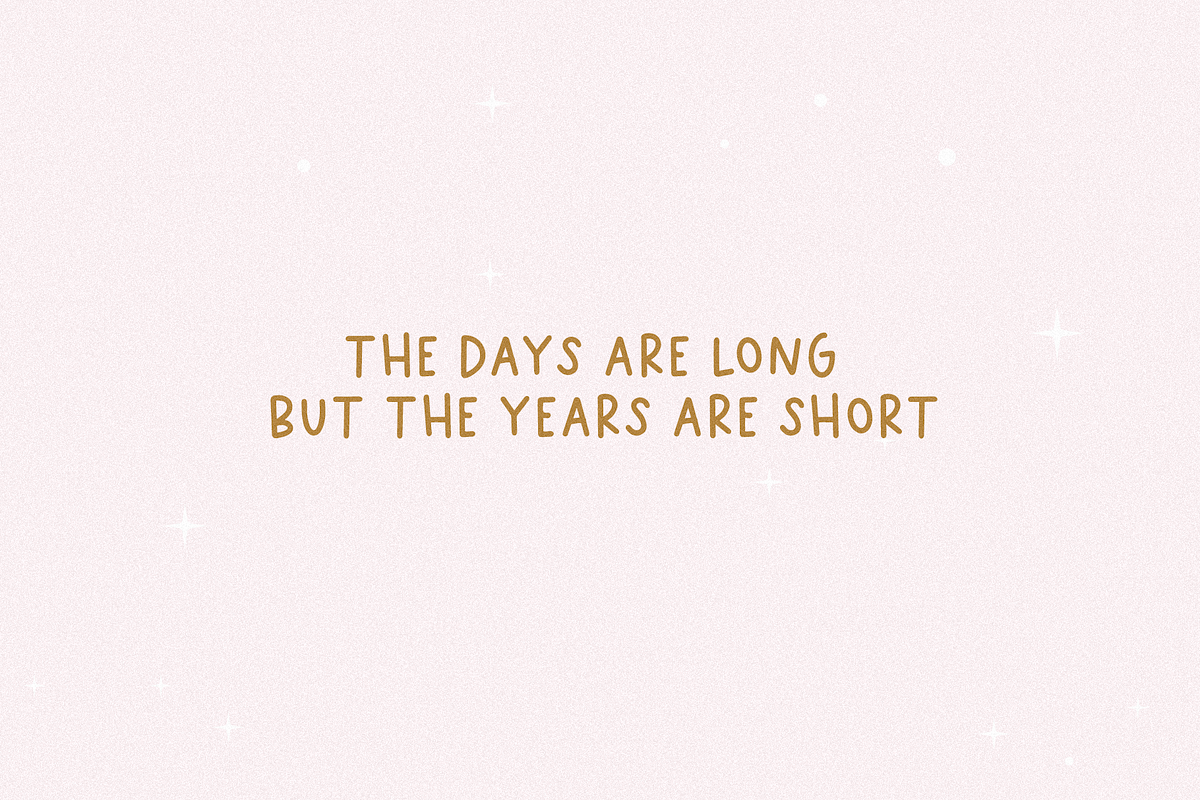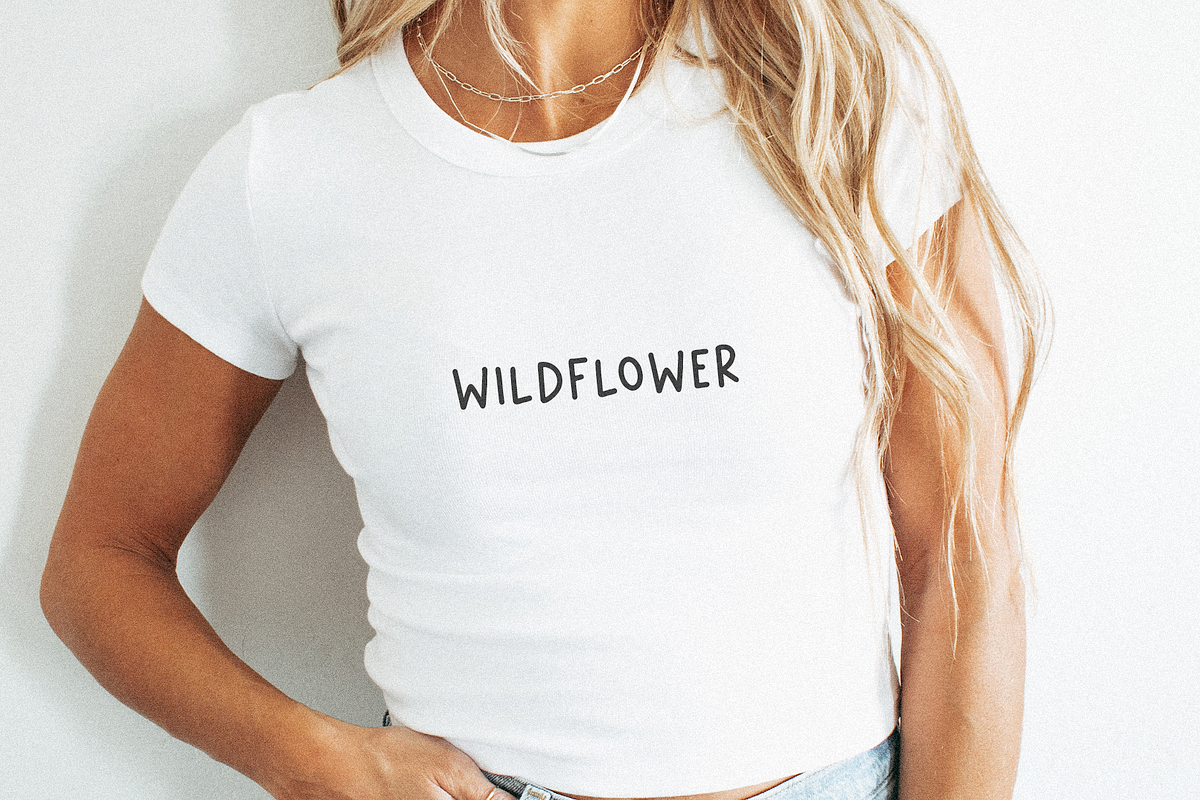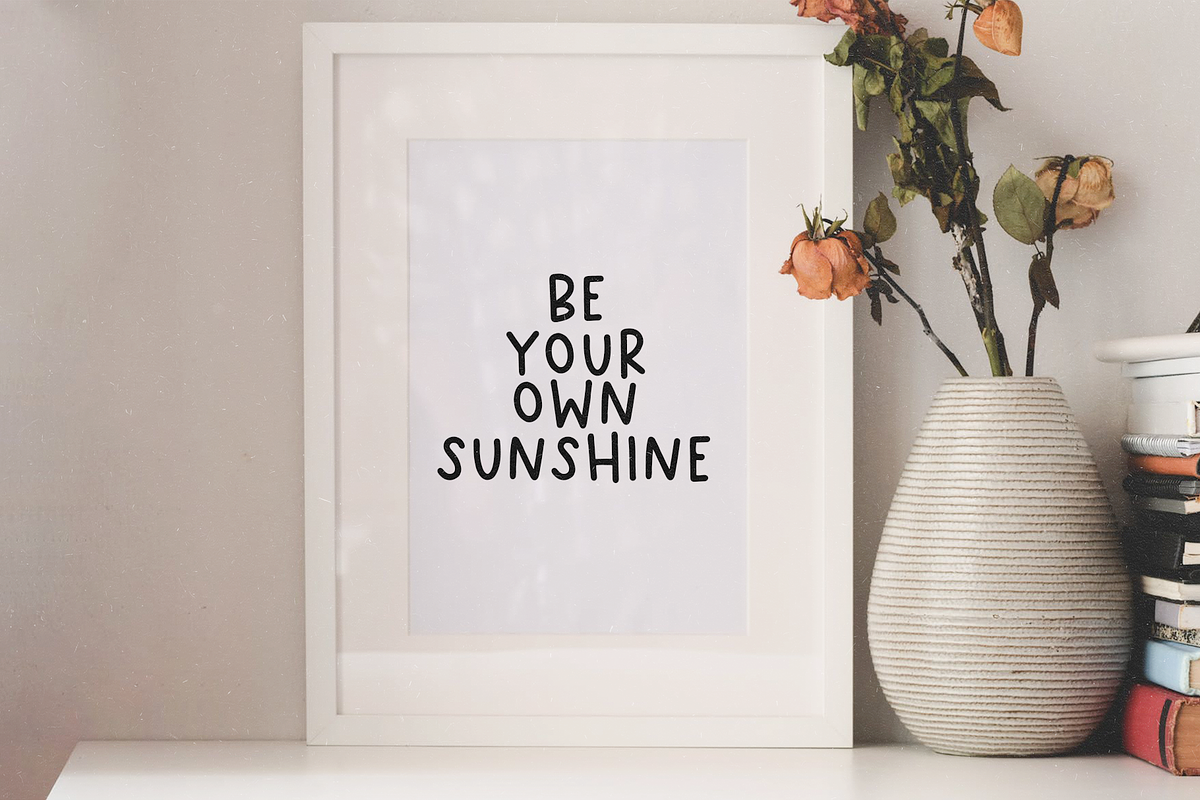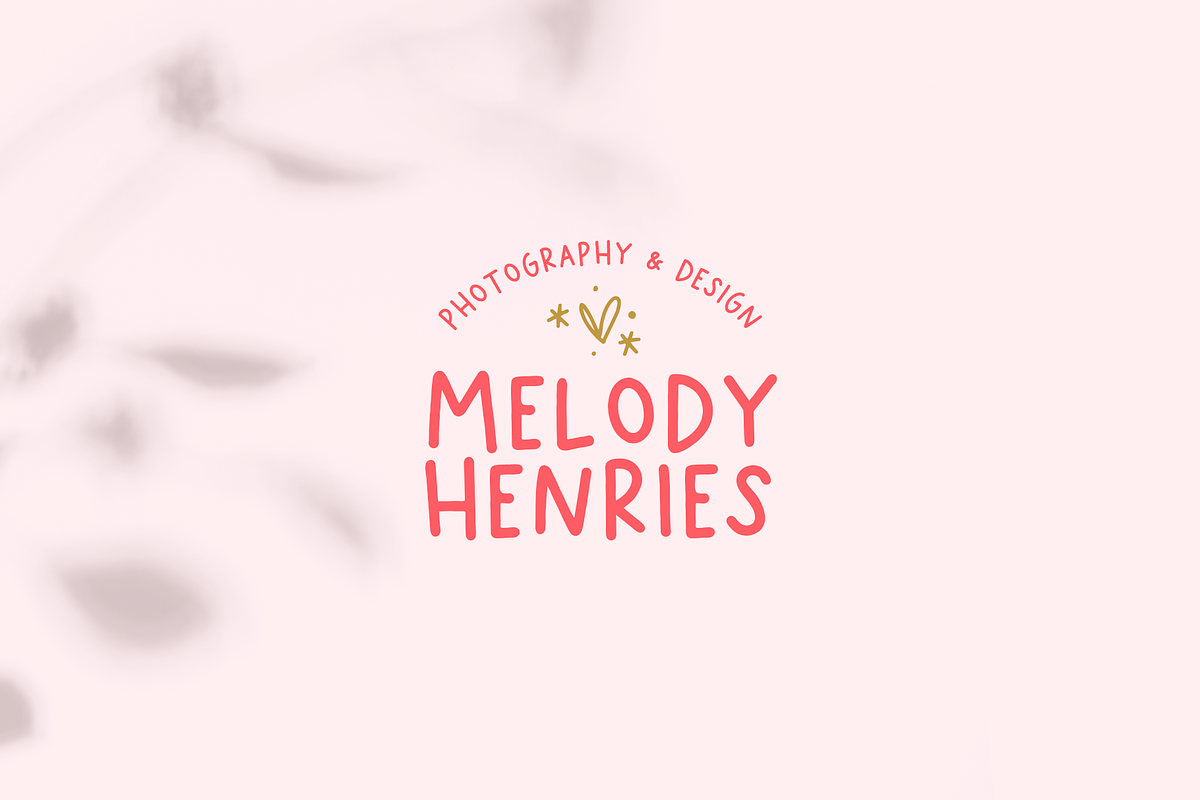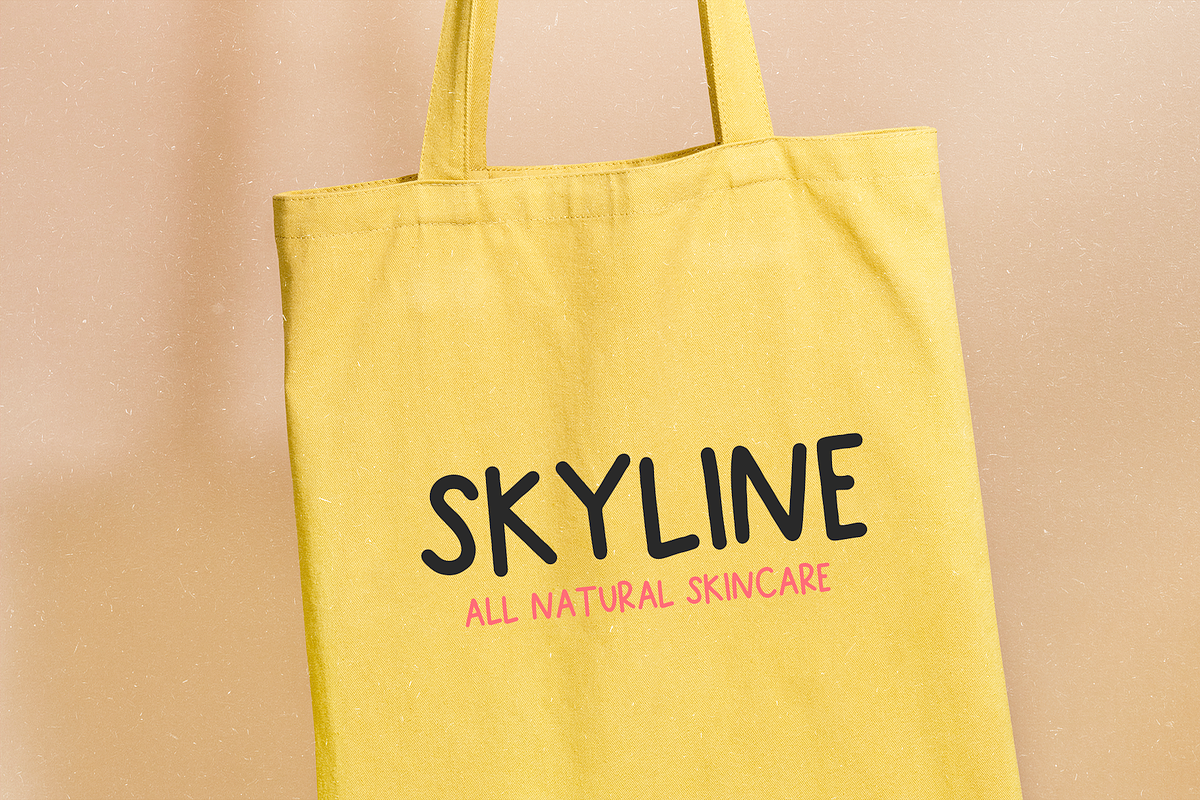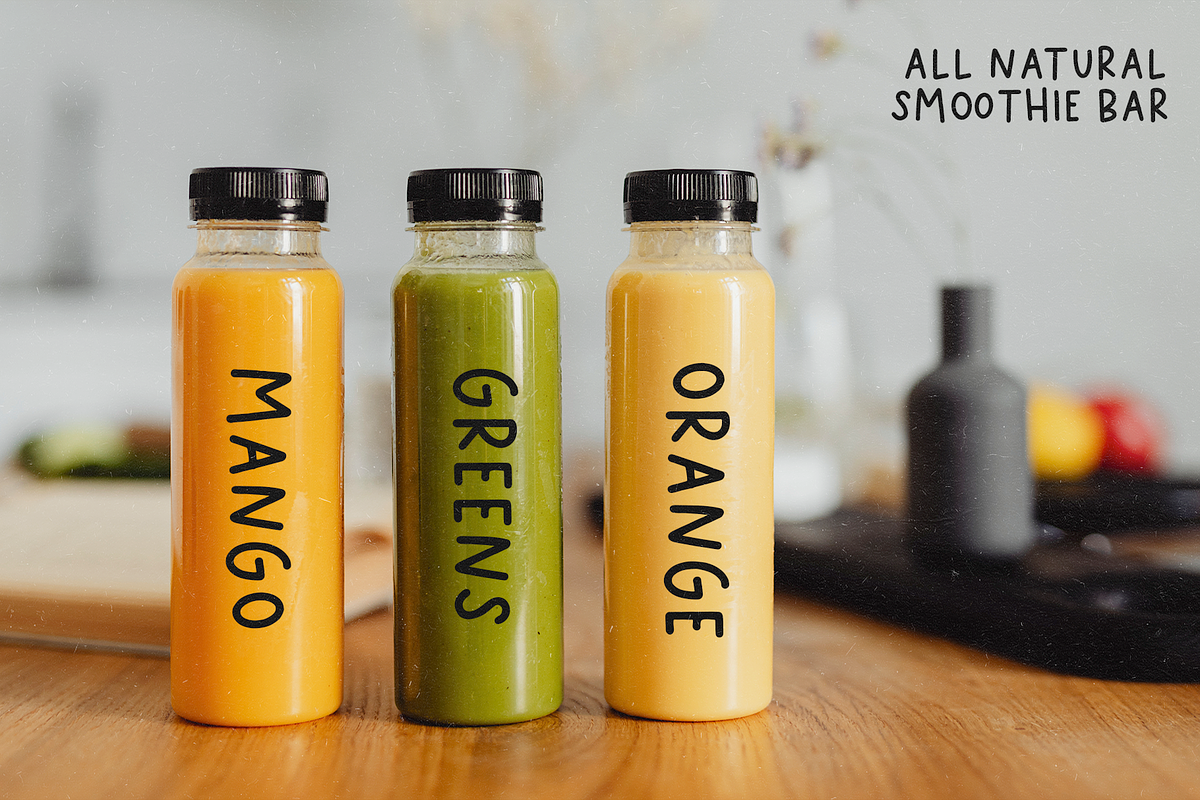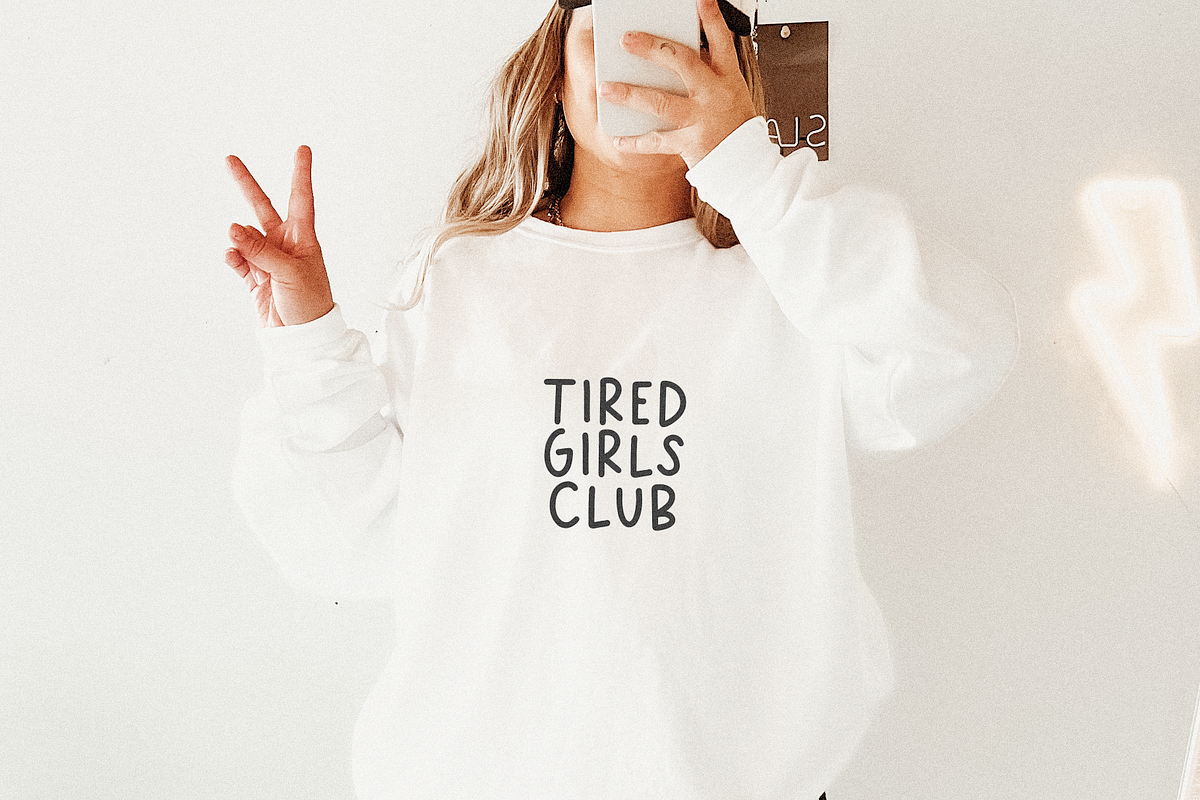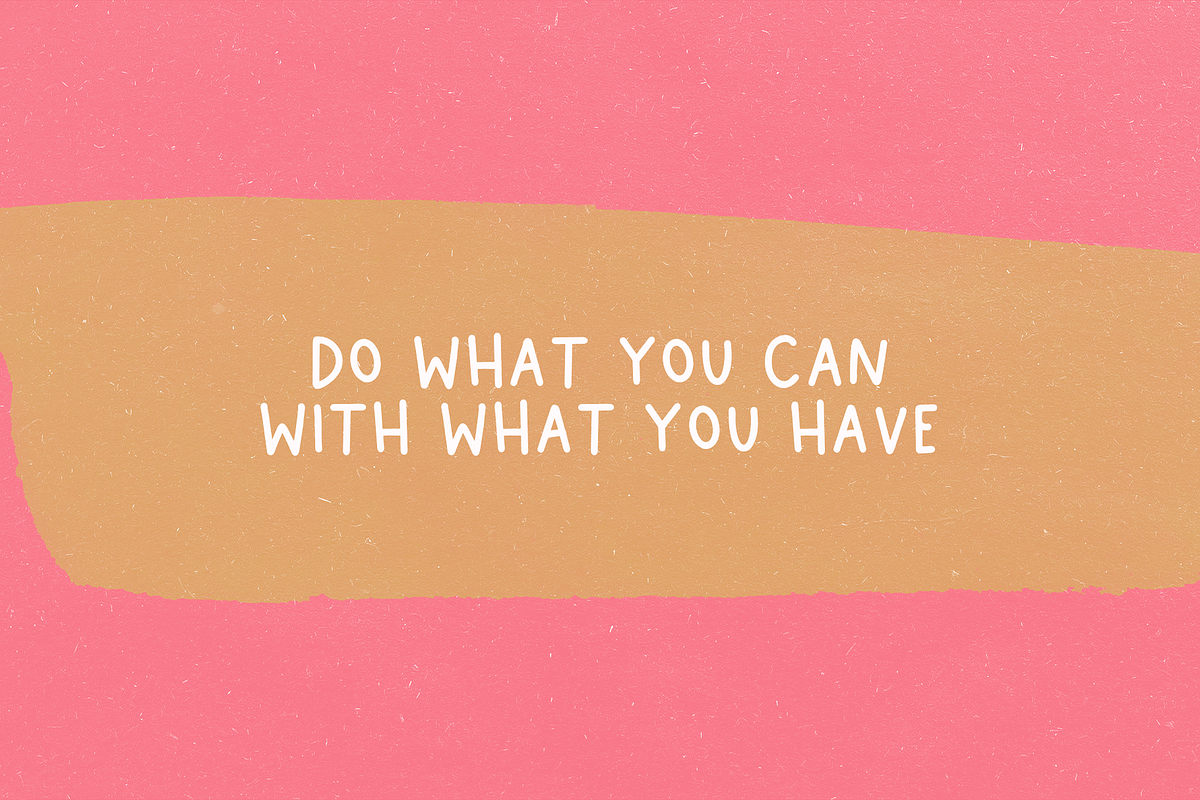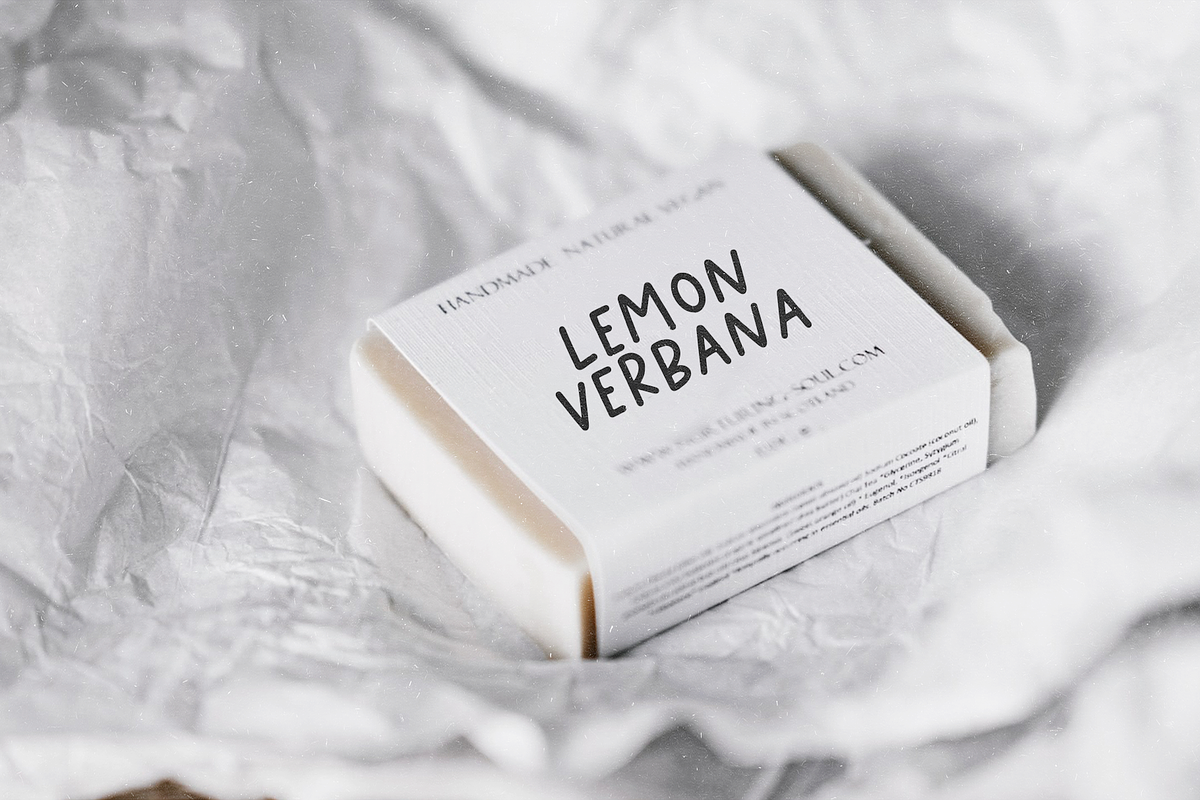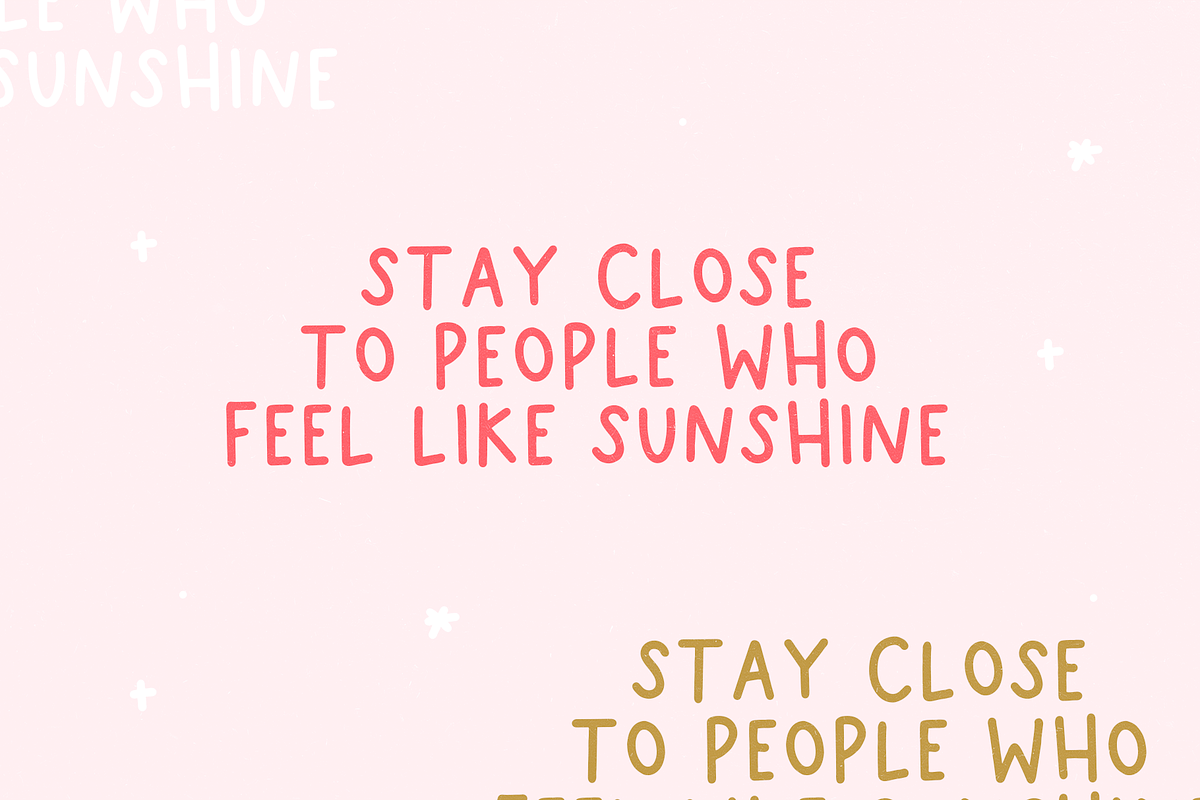
More Dreams | Handwritten Font
More Dreams is a casual handwritten font. It has an authentic texture - giving it a look as if it just left your pen!
This font is especially perfect for instagram and Pinterest quotes.
Other uses include: logos, websites, blogs, home decor, svg designs, t-shirts, invitations, business cards, branding, and more!
Most accent characters included.